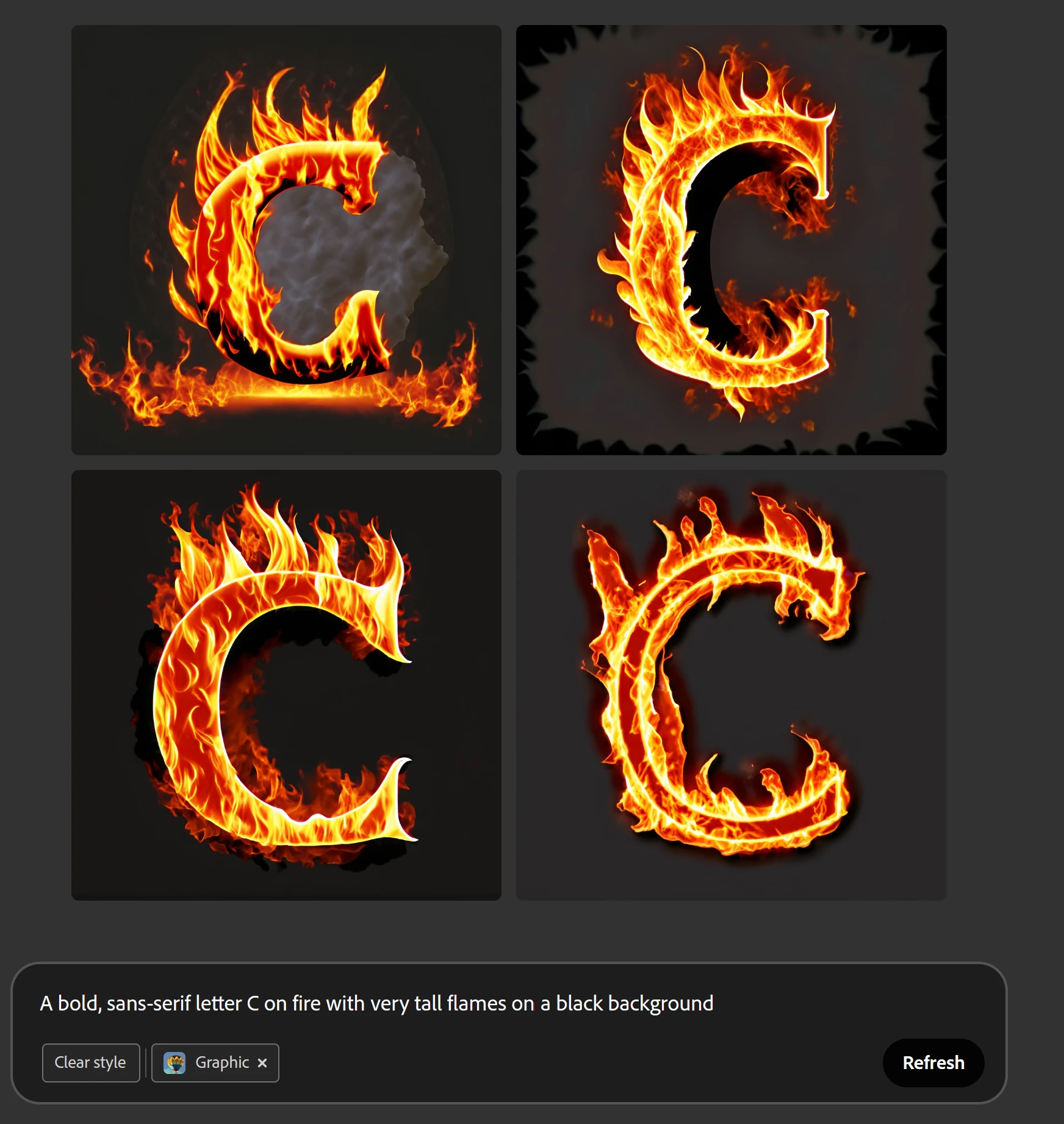
Font information is not respected when generating text-based content
I used the prompt "A bold, sans-serif letter C on fire with very tall flames, on a black background", Generally it performed very well, however all the fonts used in the generation were serif, NOT sans-serif. Given Adobe's heritage I would expect it to respect any specified font instructions. Please see attached image